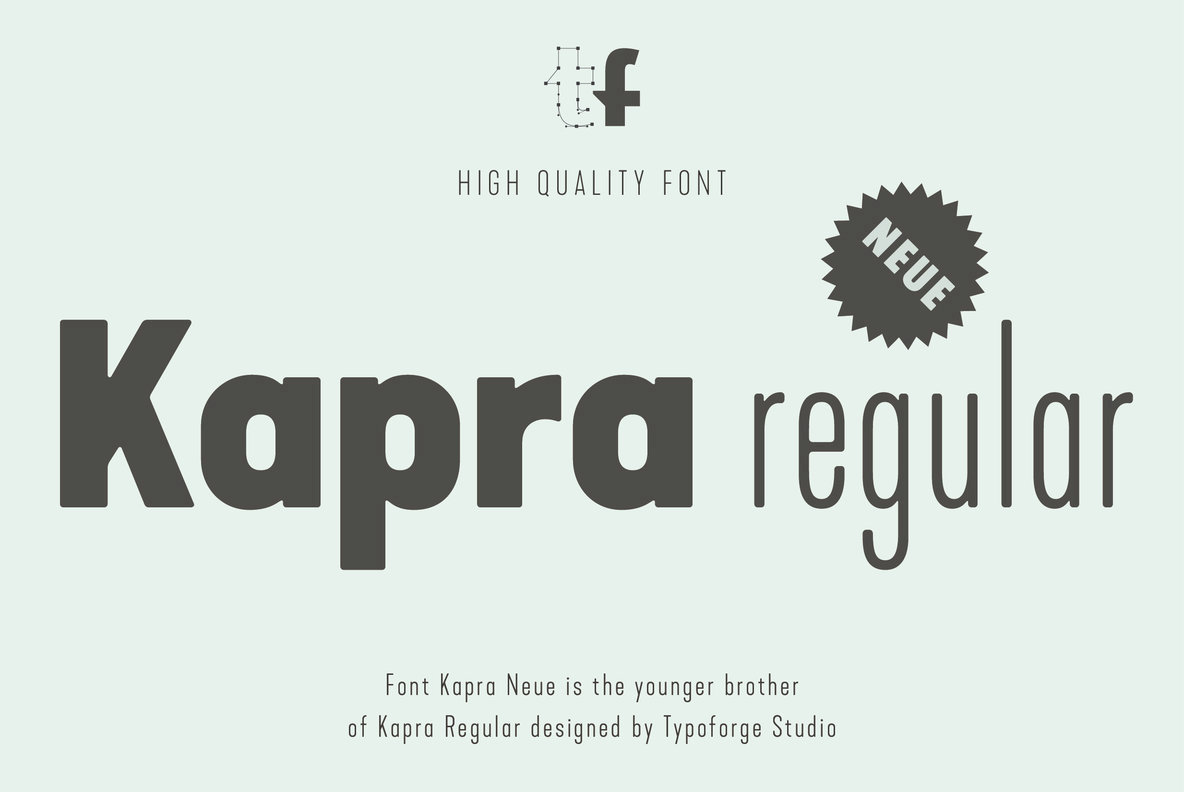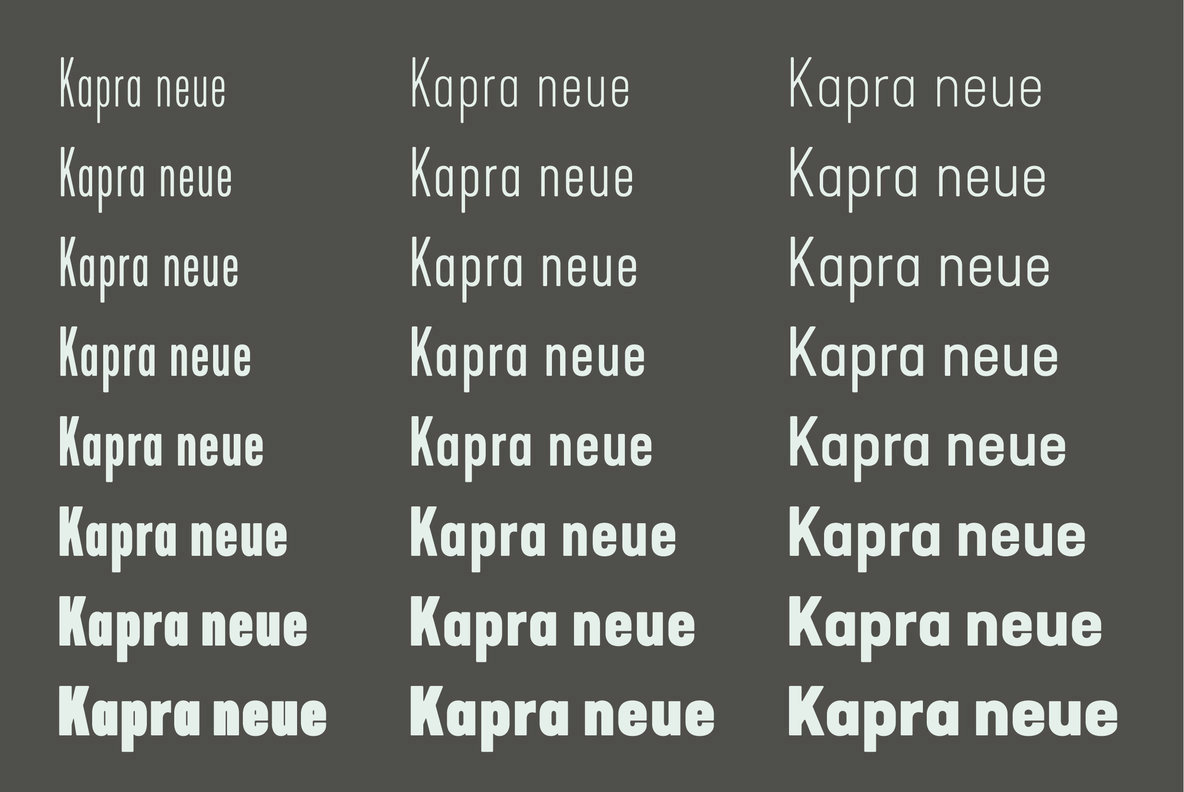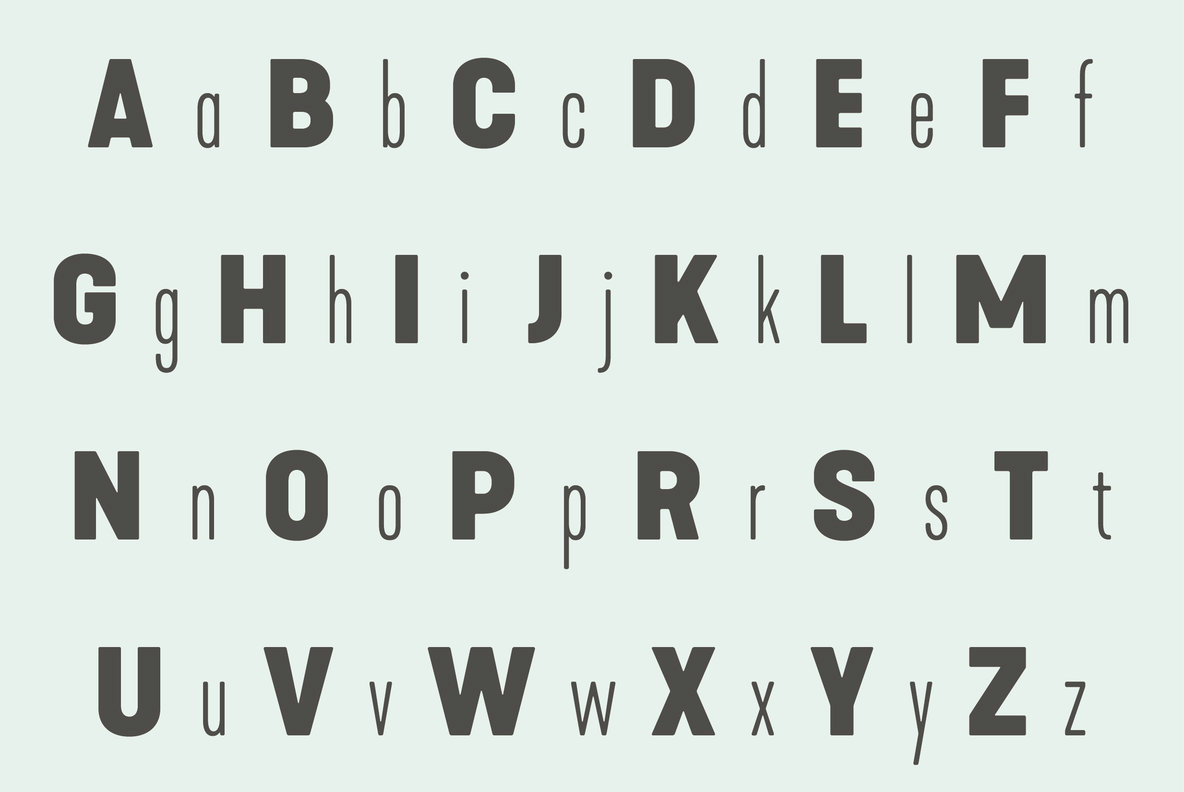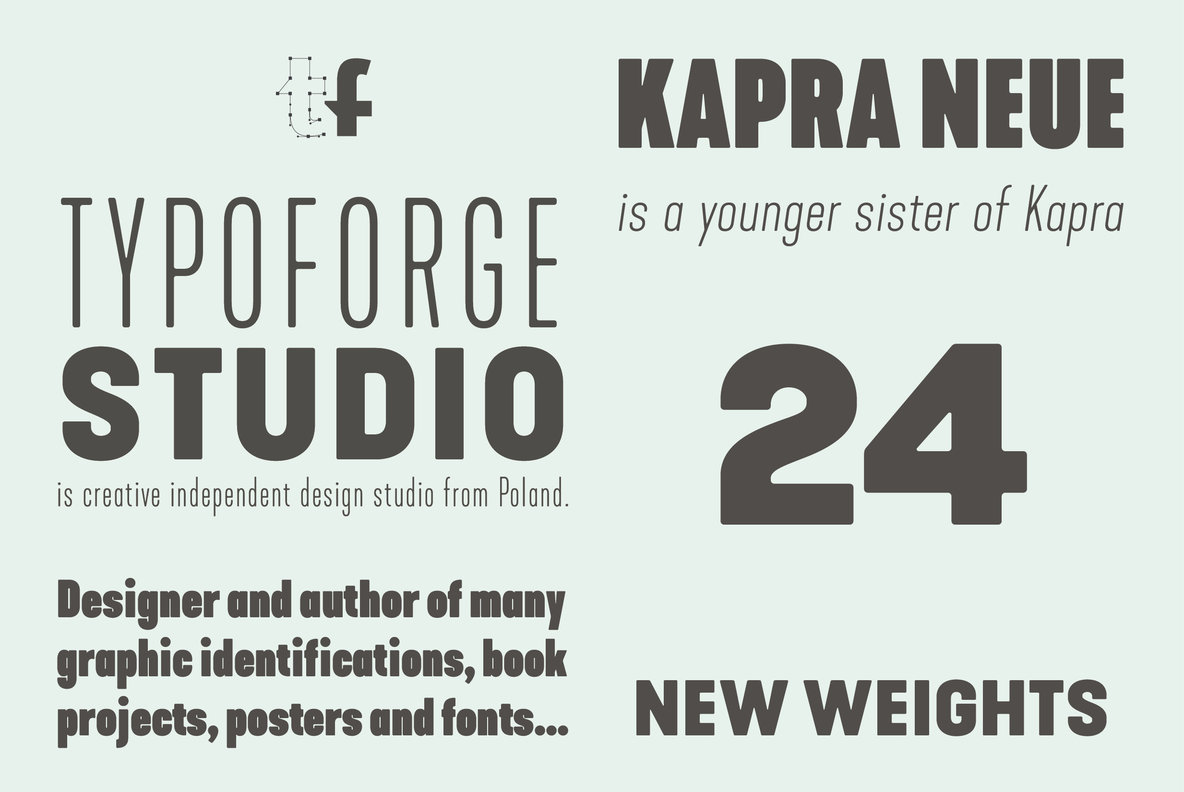
Kapra Neue Font
Kapra Neue is a younger sister of Kapra. New family has refreshed proportions, rounded corners, and a new shape of glyphs. It is characterised by a wide range of instances – 24 new weights, from Thin Condensed to Black Expanded, allow to use the family in a complex way, depending on the user’s needs. Every instance comes with it's italic version. Font has a glyph set for latin script and old-style figures. Kapra Neue is inspired by a “You And Me Monthly” magazine, published by National Magazines Publisher RSW "Prasa” in Poland, from Mai 1960 till December 1973.
Typoforge Studio is an independent design practice based in Poland, led by graphic designer Błażej Ostoja Lniski. Known for bold, character-rich typefaces rooted in European poster tradition and vintage lettering, the studio blends expressive form with practical function. Their catalog includes slab serifs, wo...